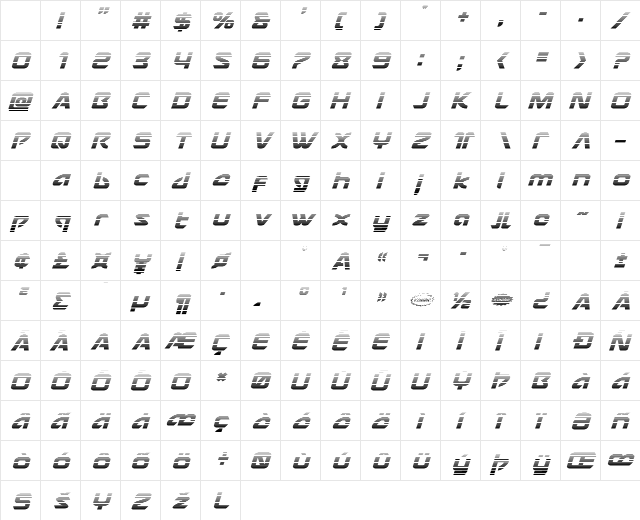
USAngel Gradient is a composed and adaptable typeface that performs quietly and consistently across a wide range of design contexts. The slanted form adds forward momentum and visual energy.
Pro Tip: Use USAngel Gradient for emphasis, pull quotes, and subheadings where its slanted energy can add rhythm to the layout.